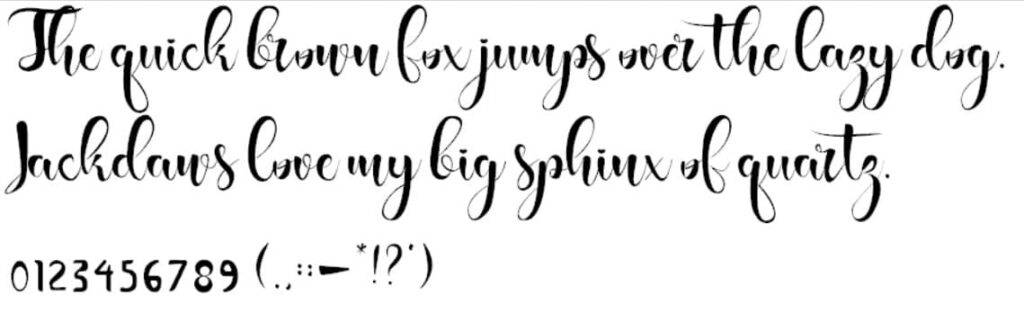
Geniusly Calligraphy Font
Geniusly Calligraphy Font is a lovely Script and Calligraphy font with an iconic foundation. On April 27, 2020, Inermedia Studio designed and published the Font.
Geniusly Calligraphy Font is a beautiful formal script with a chic look. It is ideal for weddings, logos, greeting cards, brand identity, print advertising, quotes, signage, magazine articles, so on and so forth. The Font is mainly used in E-commerce sites for making various wallpapers or logos and caption writing on social media sites such as Facebook or Instagram.
| Name | Geniusly Calligraphy Font |
| Style | Script, Calligraphy |
| Designer | Inermedia Studio |